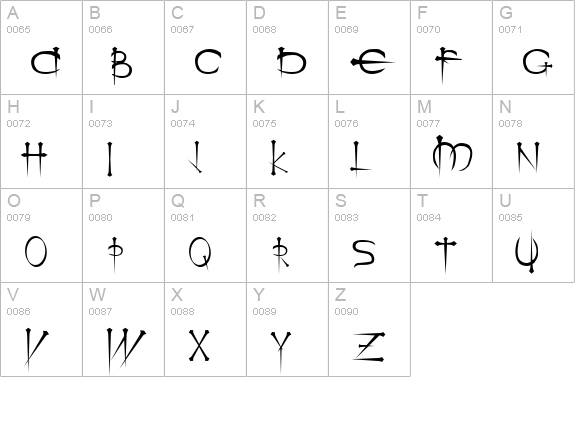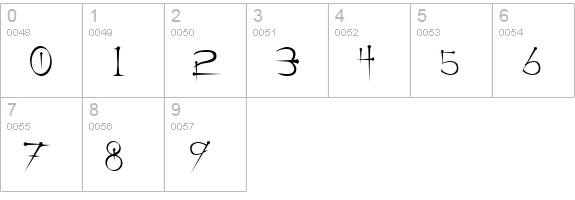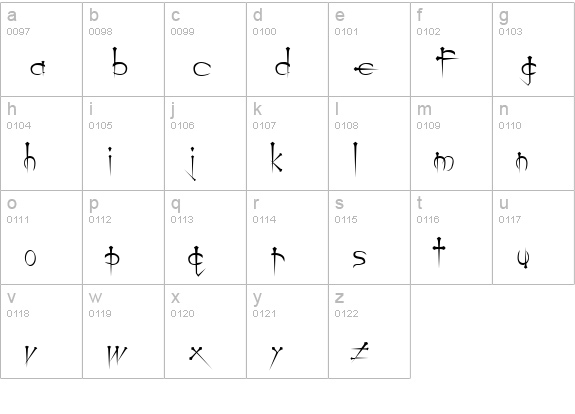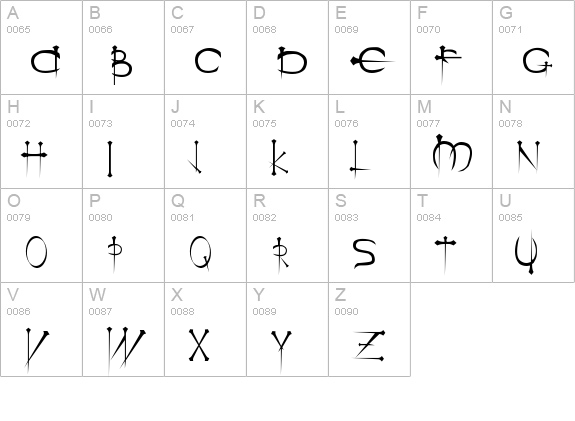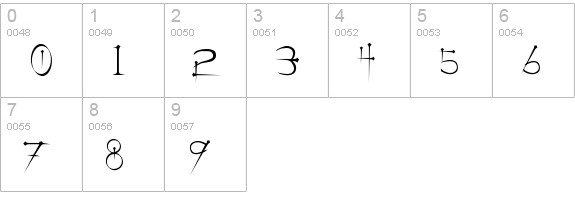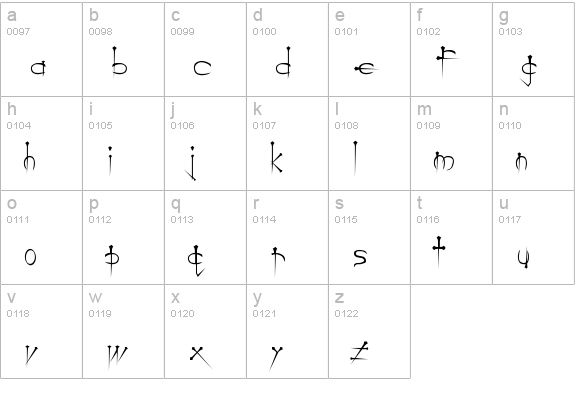
Ogilvie Regular Font Details
Ogilvie Regular is the standard, neutral variant in the Ogilvie typeface family \xE2\x80\x94 well suited to general body text, paragraphs, and standard typographic work.
Introducing the elegant and versatile Ogilvie Regular font - a timeless typeface that strikes the perfect balance between modernity and classic sophistication. With its clean lines and refined letterforms, Ogilvie Regular is ideal for a wide range of design projects, from elegant invitations to stylish branding. This exquisite font is available for free download at FontsMarket.com, making it easily accessible for designers and creatives looking to add a touch of class to their work. Whether you're creating a logo, designing a website, or crafting a memorable print piece, Ogilvie Regular is sure to elevate your design with its understated elegance and timeless appeal. Embrace the beauty of Ogilvie Regular and bring a touch of refinement to your next project. Download this stunning font for free at FontsMarket.com and let your creativity shine with this versatile and sophisticated typeface.